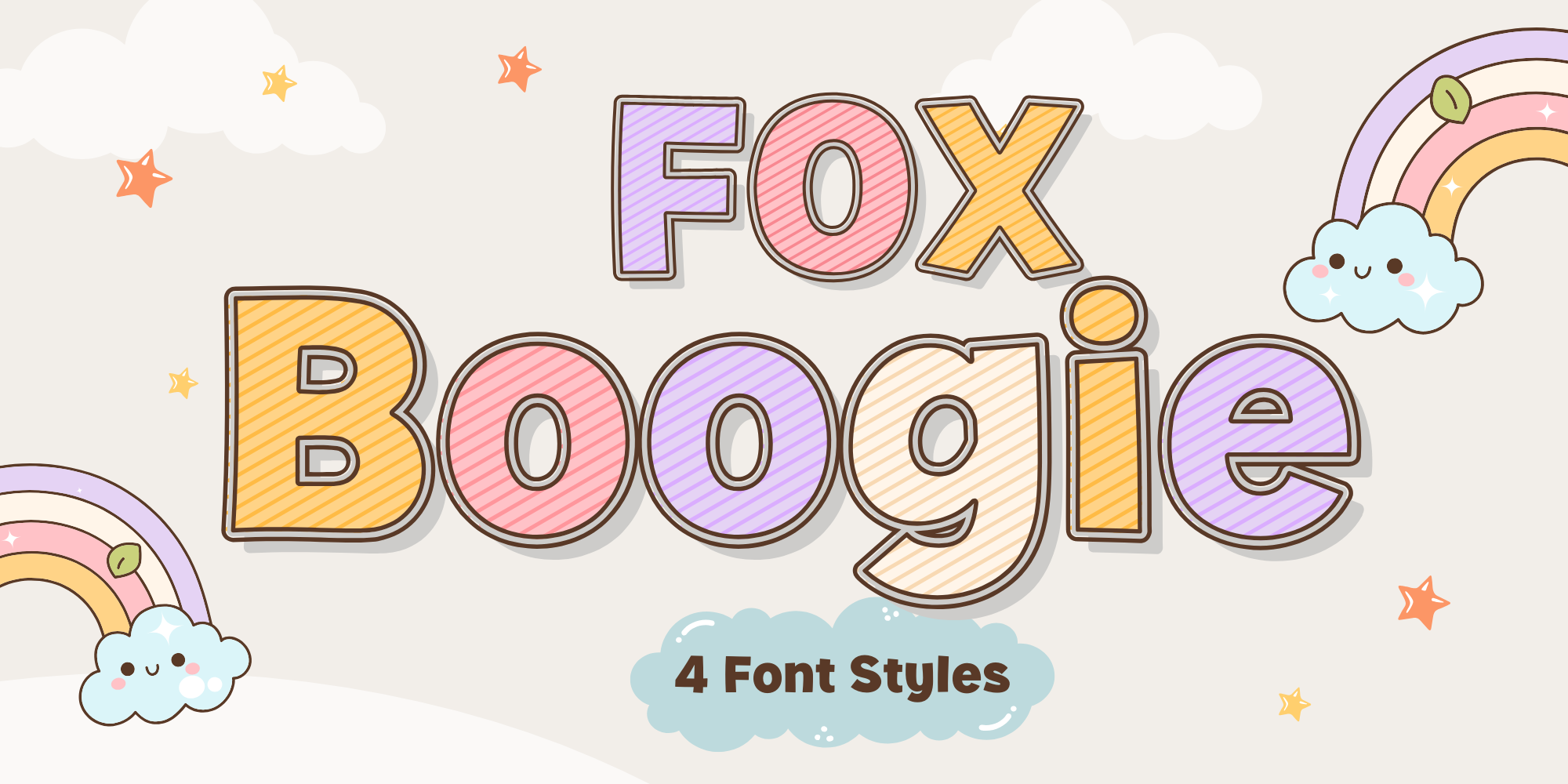
Fox Boogie
Designed by Rattana Rattanawan, Fox Boogie is a display sans font family. This typeface has four styles and was published by Fox7.
Bring a burst of joy to your designs with Fox Boogie – a fun, bubbly, and adorable display font perfect for kids’ projects, greeting cards, branding, and anything that needs a sprinkle of happiness! This font features 4 charming styles: Regular, Strokes, Outline, and Shadow – giving you creative flexibility for any occasion.
Inspired by kawaii aesthetics and playful doodles, each letter in Fox Boogie is rounded, friendly, and full of personality. Whether you’re designing for children’s books, posters, apparel, or packaging, this font adds a delightful and whimsical touch that stands out.